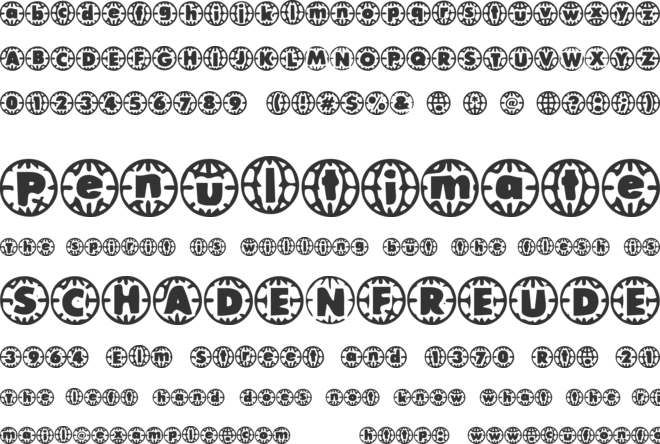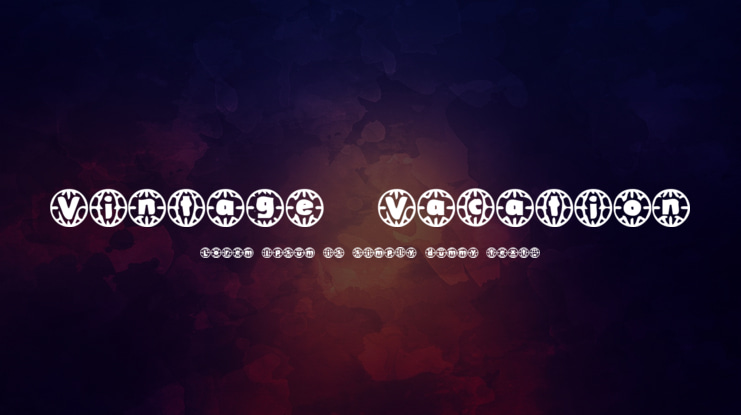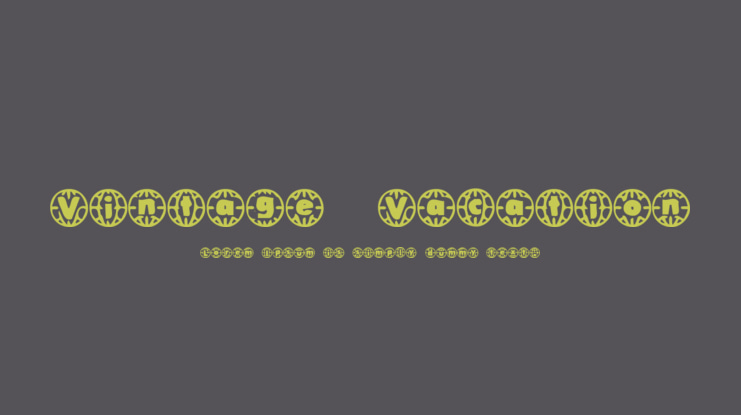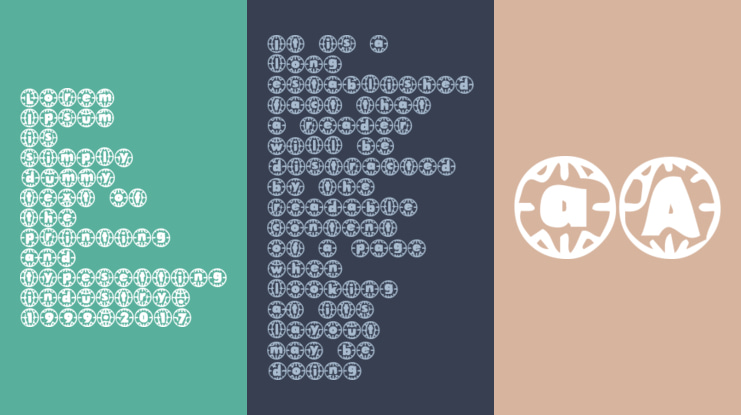
Vintage Vacation Font
I made this font because I needed something that kind of had a 1950's Summer Safari theme. I may not have captured it too well, but it served its purpose for me. Now you can have it.A commercial license is available at www.fontbros.com/families/vintage-vacation (http://www.fontbros.com/families/vintage-vacation)